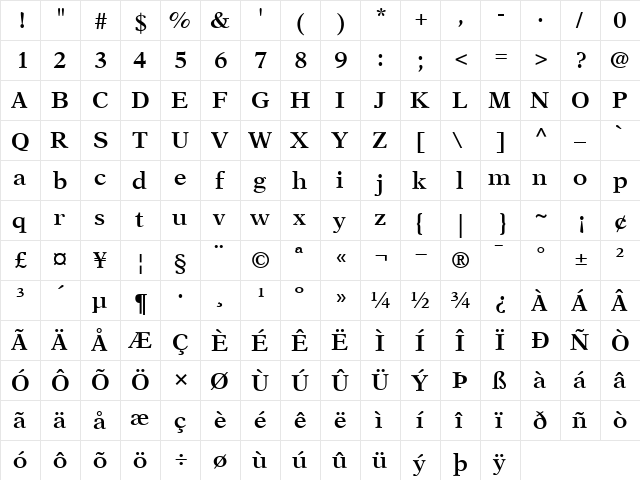
NewAsterSemi Bold
Design Context for NewAsterSemi Typeface
NewAsterSemi offers clean, dependable letterforms without strong stylistic allegiance, making it a practical choice for designers who need flexibility. Its bold stroke weight gives it real presence on the page.